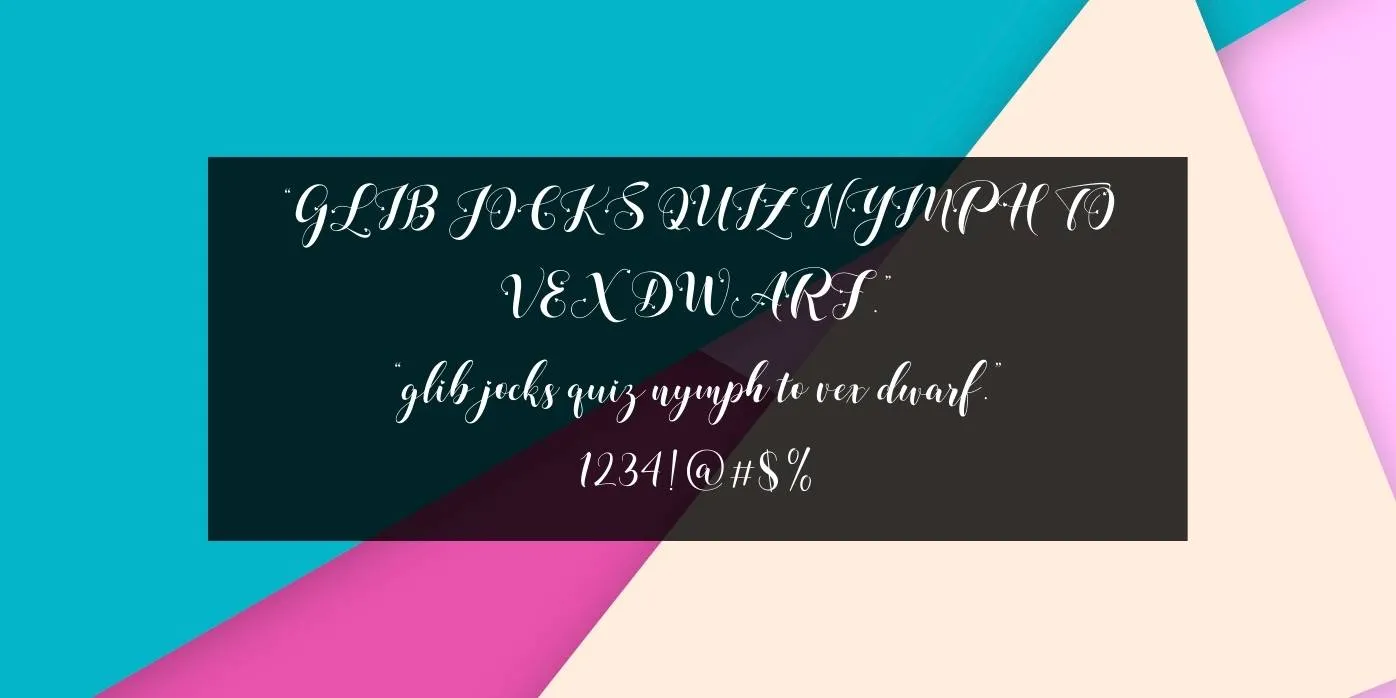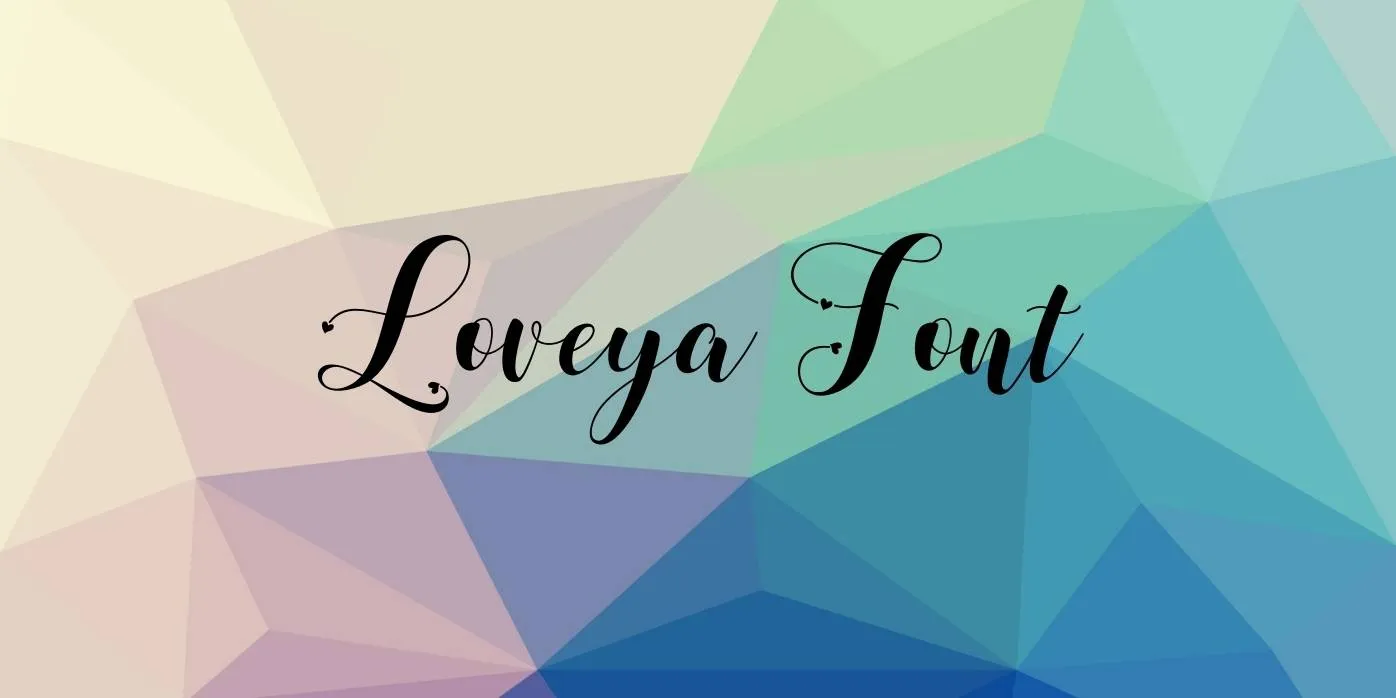
Loveya Font
In this post, we introduce a classy typeface known as Loveya Font. It was designed by Font Bundles. It is an elegant calligraphy font with a clean and modern design. It’s perfect for branding, website headers, and other display uses.
Loveya Font is a great choice for those looking for a sophisticated calligraphy font. The font has a clean and modern design that makes it perfect for branding and other display uses. It is very famous because of its unique style which is perfect for various projects. This stylish font family includes three different styles: Regular, Slanted, and Bold.